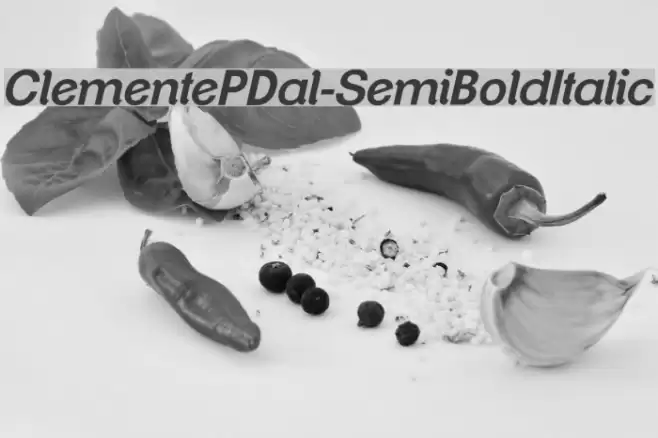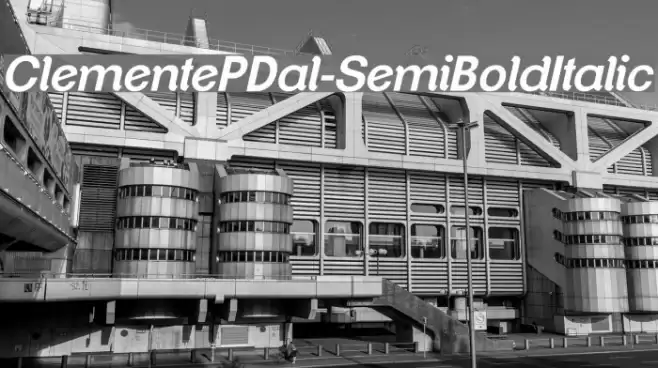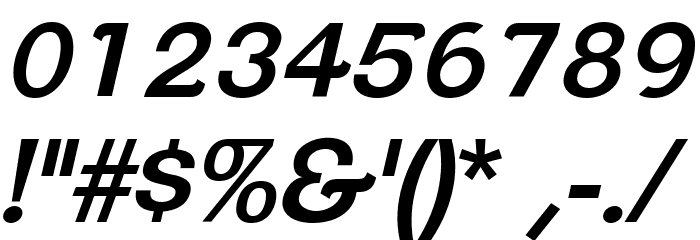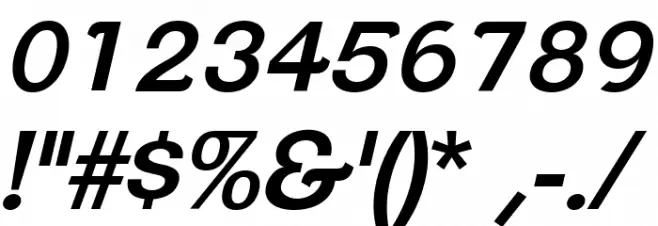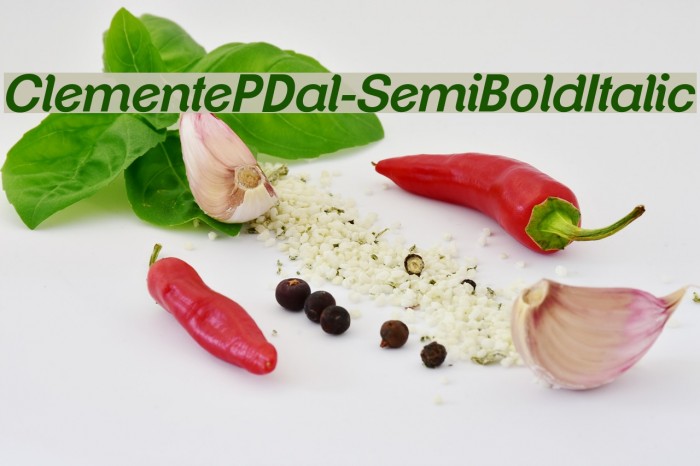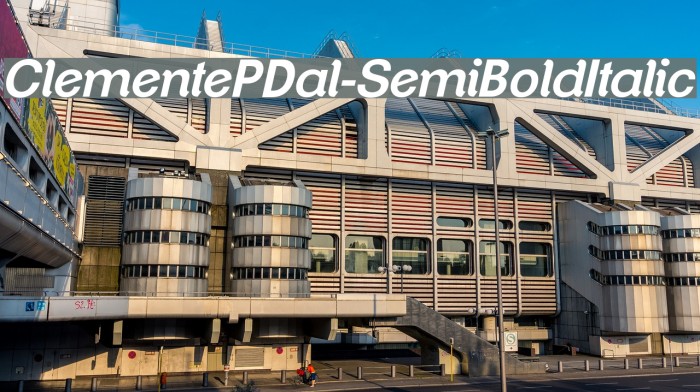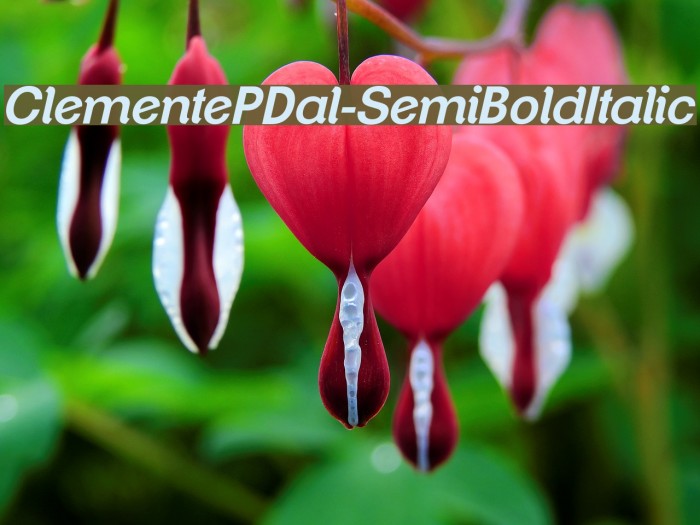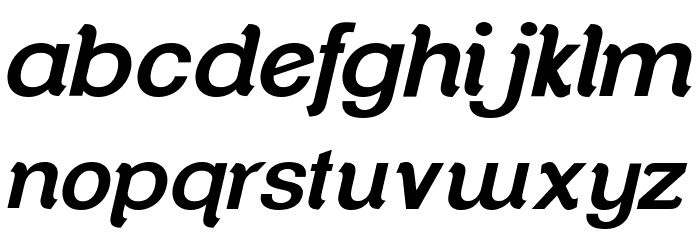
ClementePDal-SemiBoldItalic Font
ClementePDal-SemiBoldItalic Description
This font exhibits a modern and dynamic style with a semi-bold weight and italic slant, giving it a sense of movement and energy. The characters are slightly condensed, enhancing its sleek appearance. The strokes are smooth and consistent, with medium contrast that adds to its readability. The uppercase letters are bold and assertive, while the lowercase letters maintain a friendly and approachable feel. The numerals are clear and well-proportioned, making them suitable for various applications. Special characters are distinct and harmonize well with the overall design, ensuring versatility in usage.
A modern, semi-bold italic font with medium contrast and a dynamic style from Basic fonts.
- Proposed Projects: Ideal for branding, advertising, and editorial design projects where a modern and energetic look is desired.
- Use Case: Headlines, Logos, Advertising